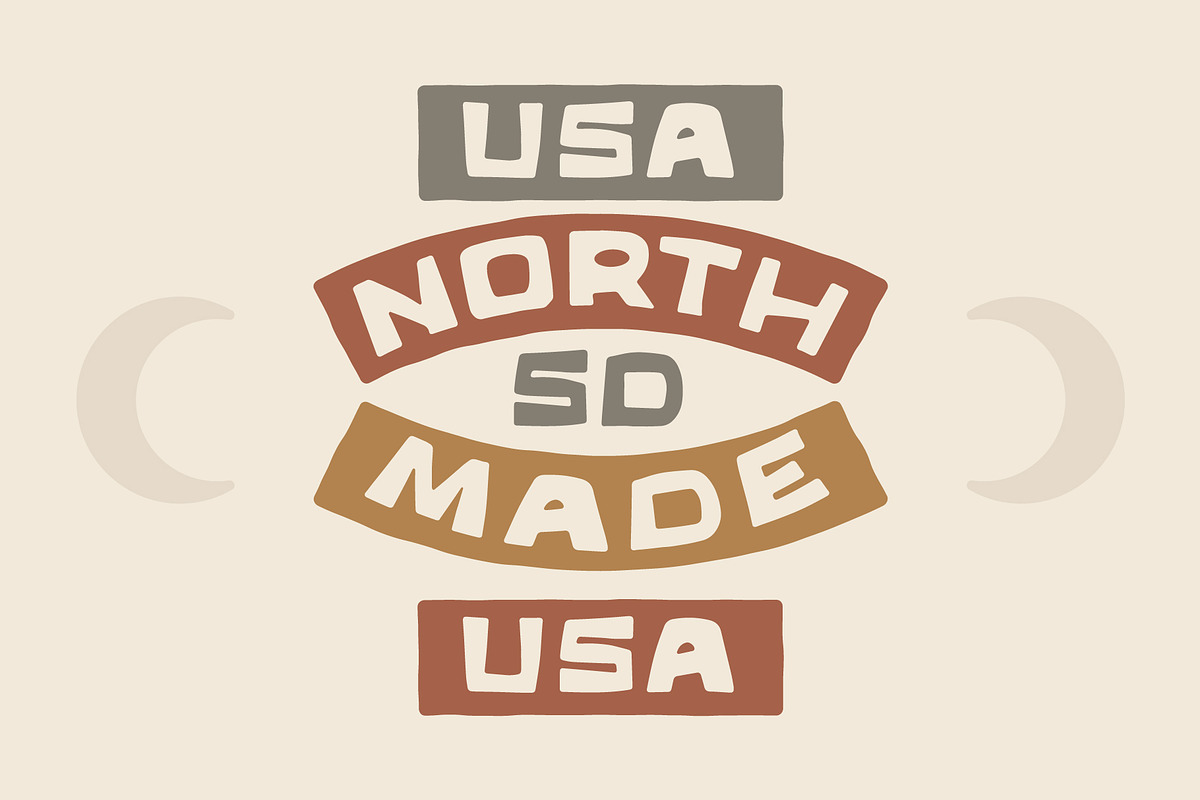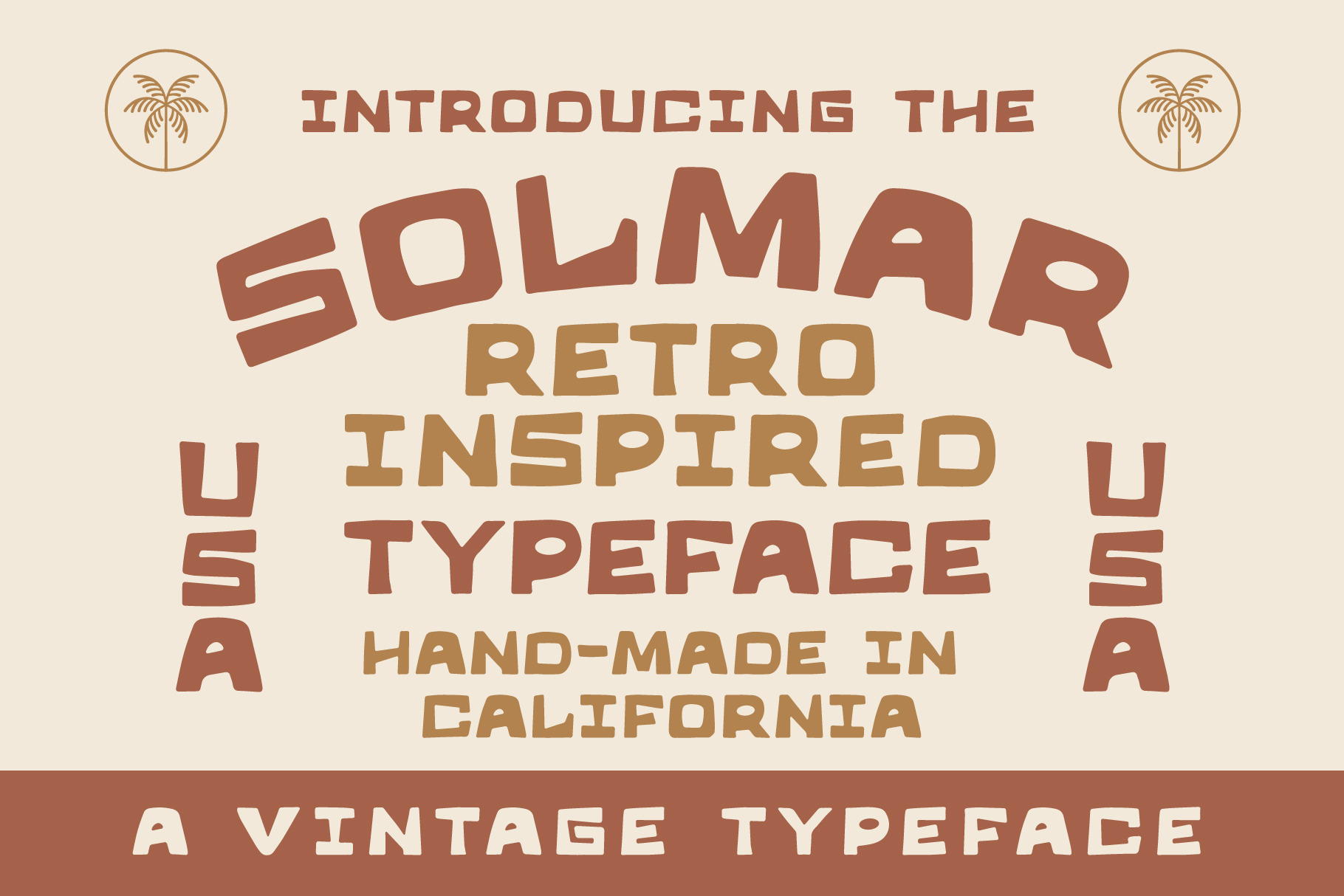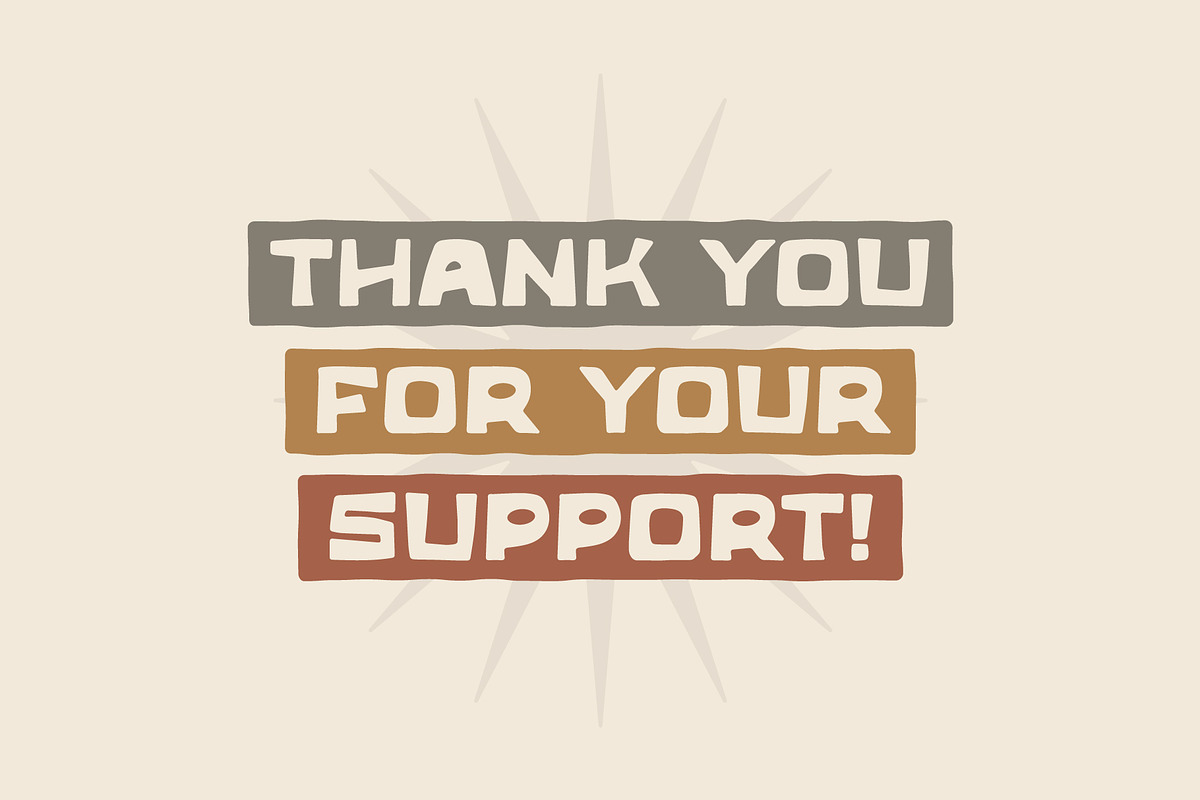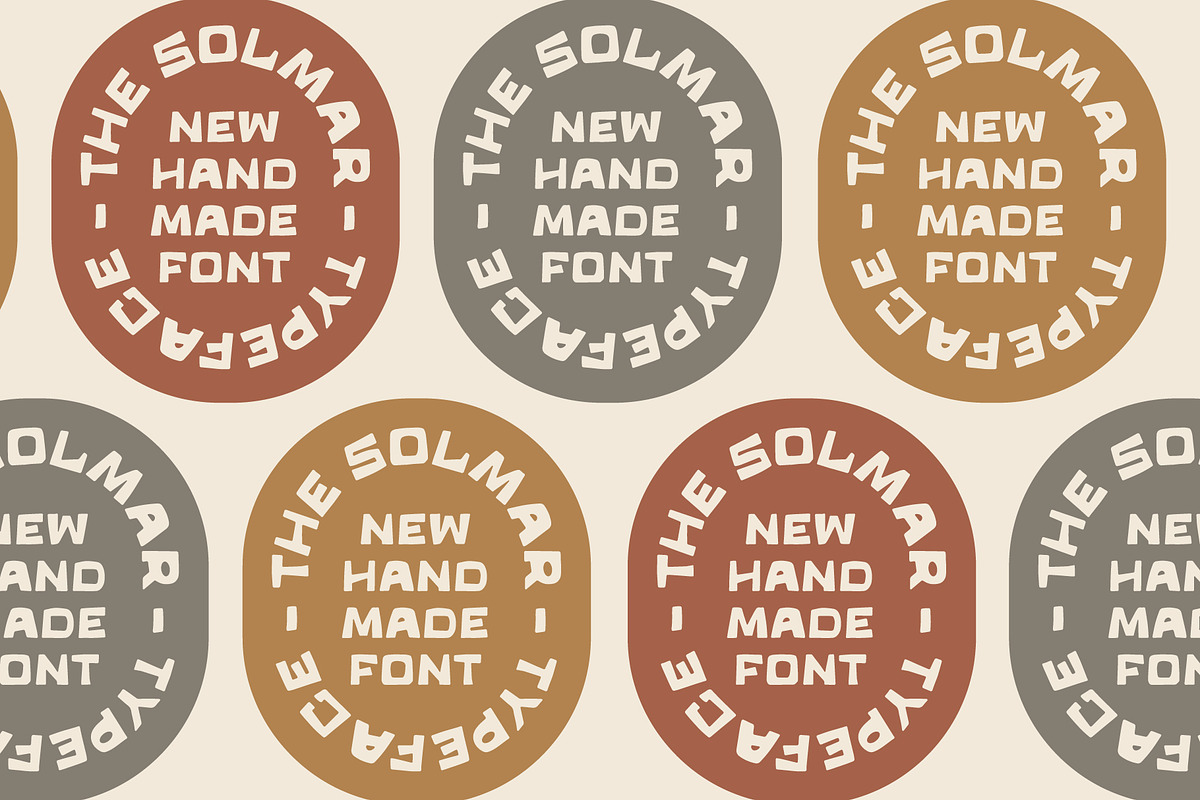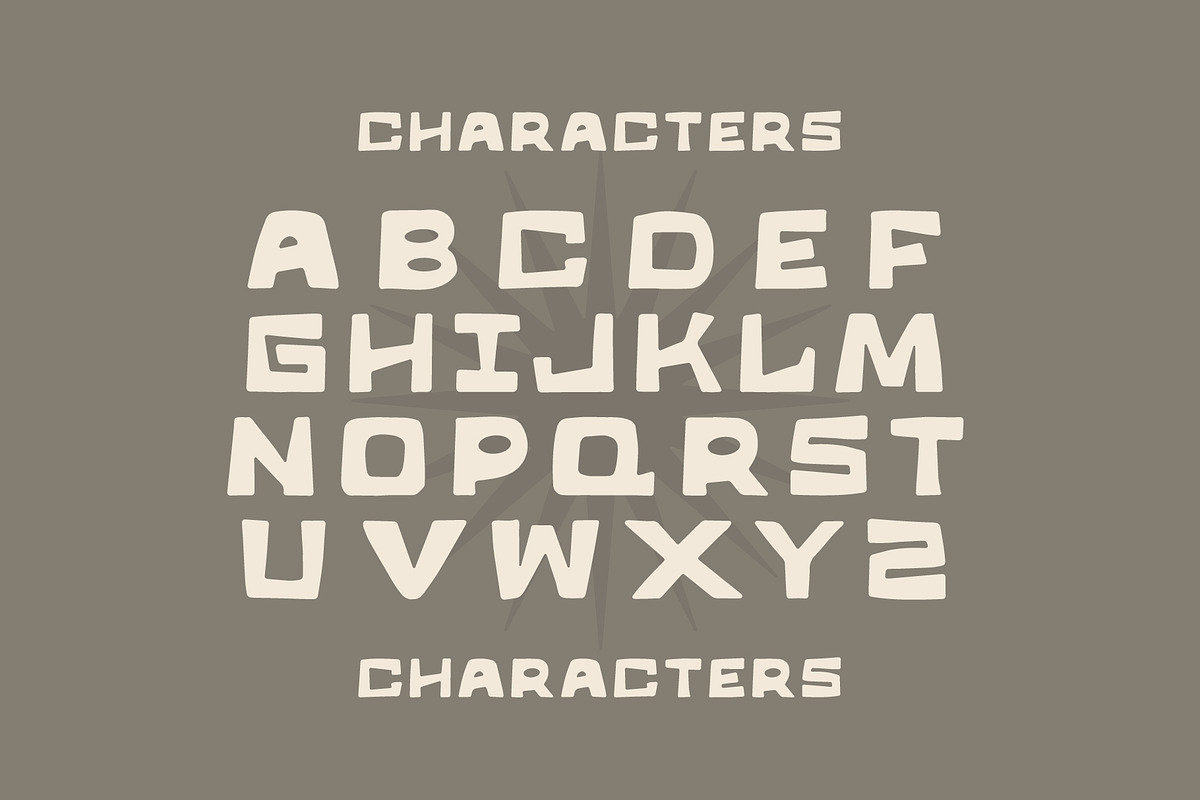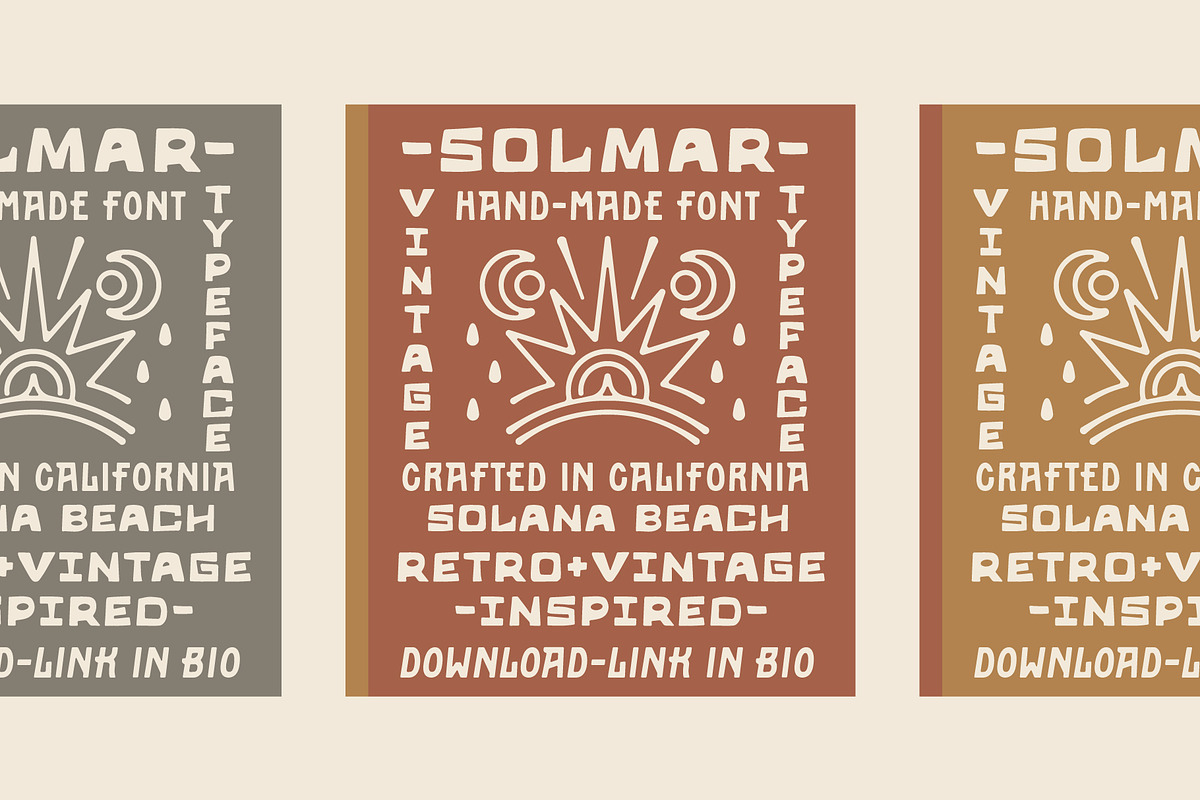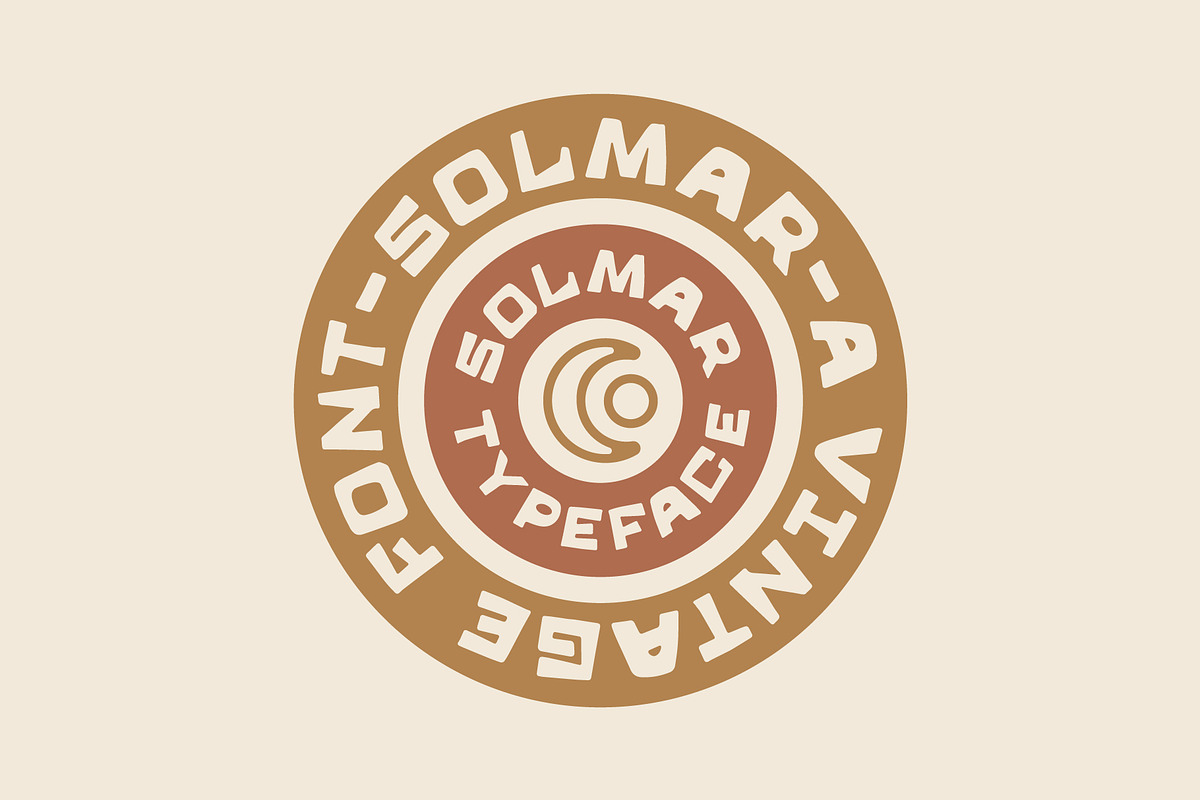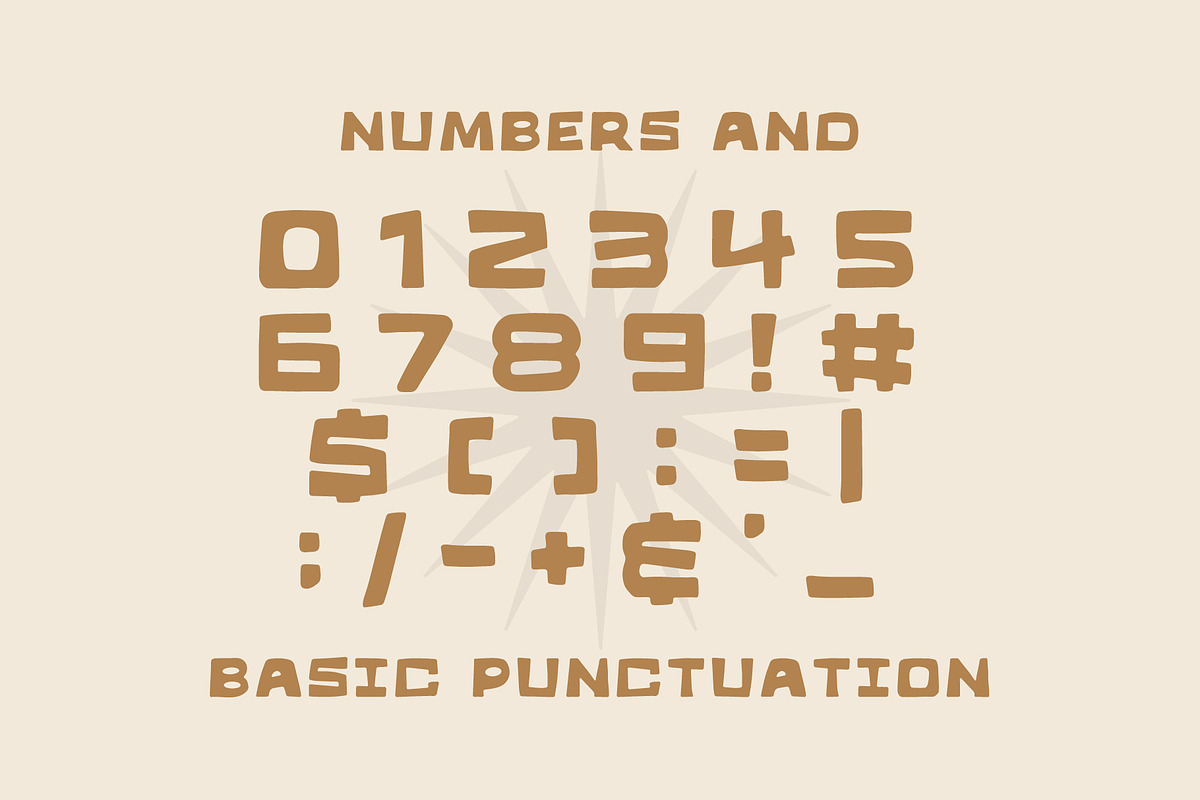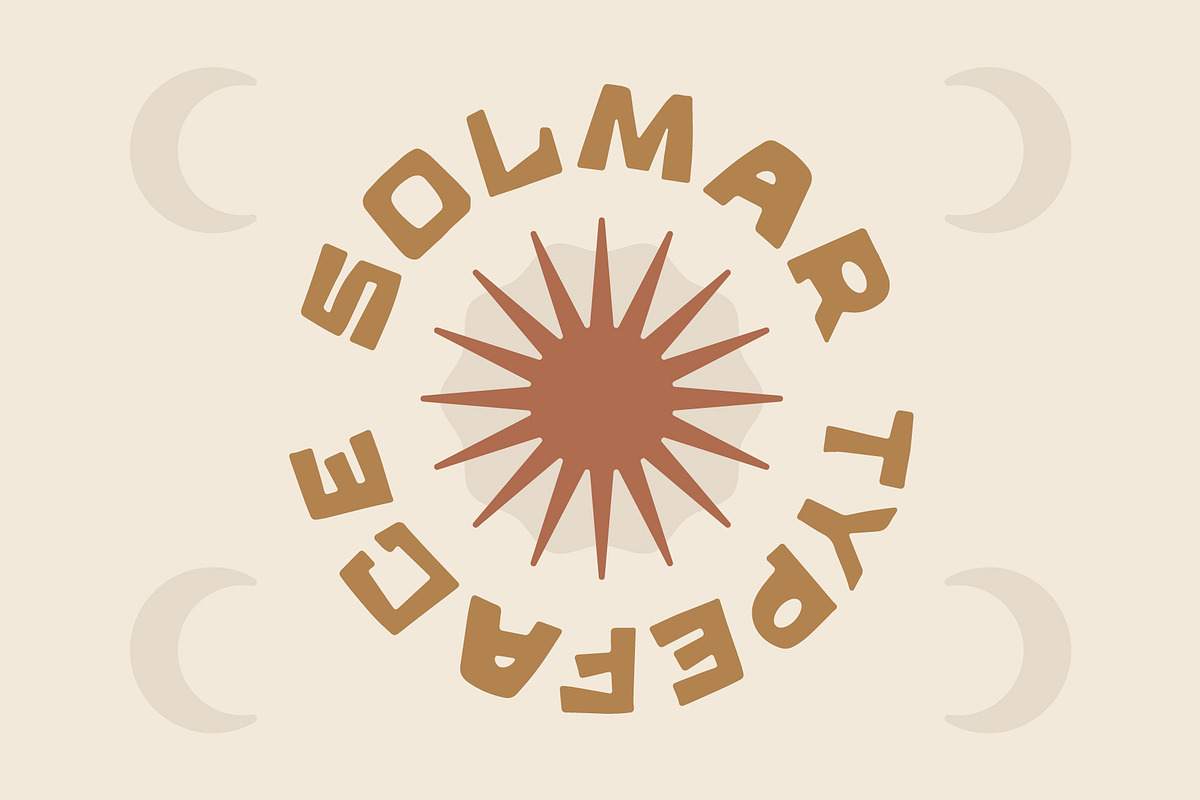
Solmar Typeface | Handmade Font
Introducing the Solmar Typeface! Solmar is a hand-made typeface that features irregular letter forms making those organic & gritty design projects easy as can be! Perfect for any poster, branding, or illustration project.